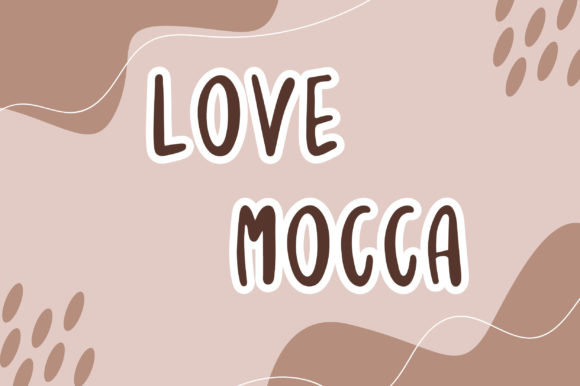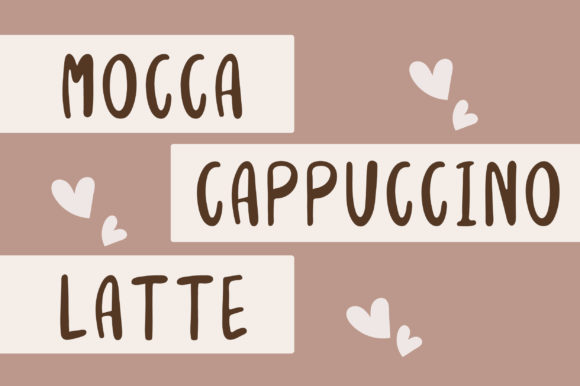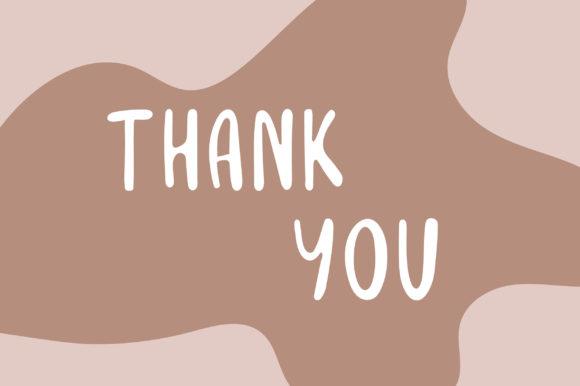
Introduction to Mocca Font Font
Fonts play a crucial role in design, and the Mocca Font font is a typeface that brings both character and versatility to any project. Whether you’re working on a branding project, a website, or a print design, the Mocca Font font offers a unique style that can elevate your work.
Mocca is a fun and friendly handwritten font.
Use it to turn any design idea into a true standout Get inspired by its unique charm and create lovely designs.
Key Features of Mocca Font Font
• ✅ High-quality typeface designed for professional use
• ✅ Includes a wide range of glyphs and characters
• ✅ Ideal for logos, branding, websites, and print
Why Choose Mocca Font Font?
The Mocca Font font is more than just a typeface – it’s a design tool that helps you communicate your message with style and clarity. Its unique character set and versatile design make it suitable for a wide range of applications, from elegant invitations to bold headlines.
With its carefully crafted letterforms and balanced proportions, the Mocca Font font ensures readability and visual appeal across all mediums.
What makes Mocca Font font special?
The Mocca Font font stands out with its unique design, exceptional readability, and versatility across various design applications.